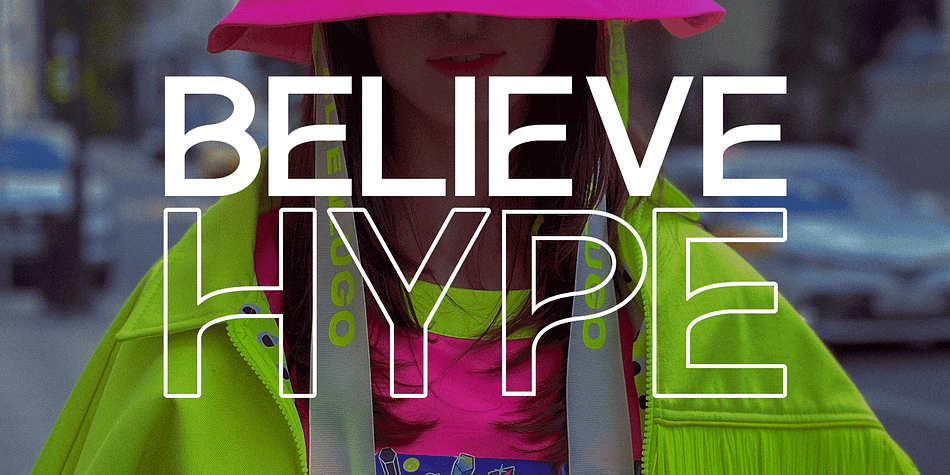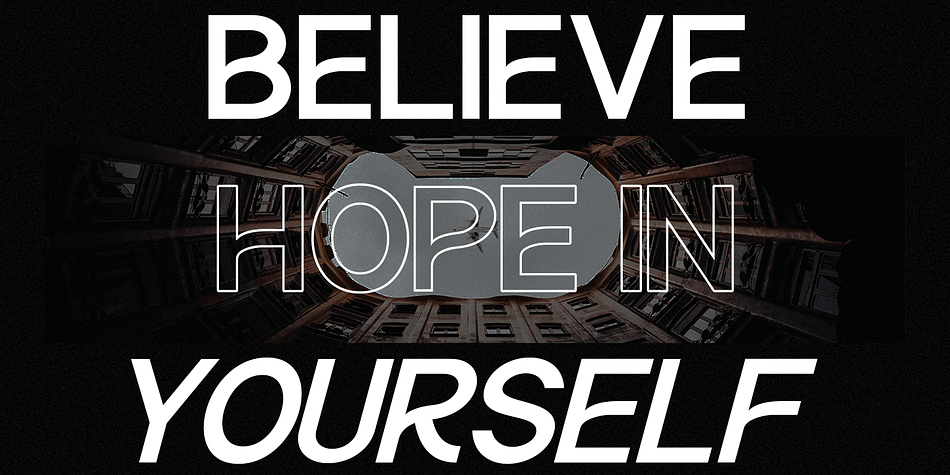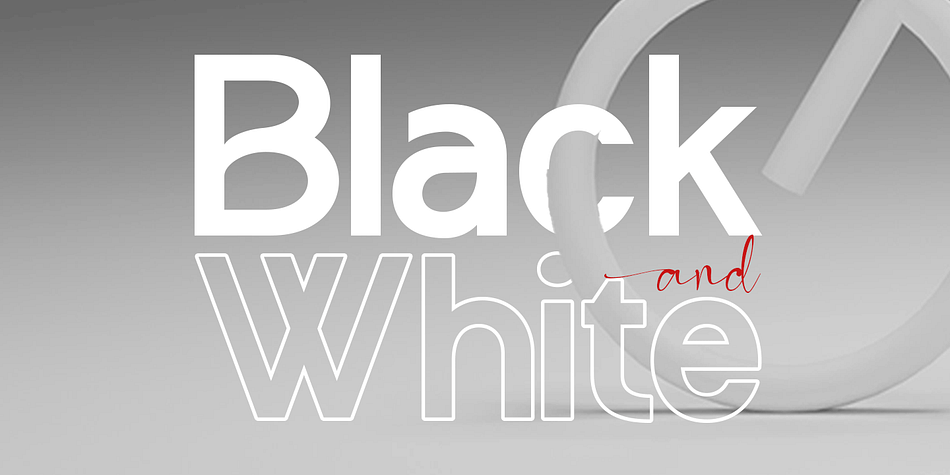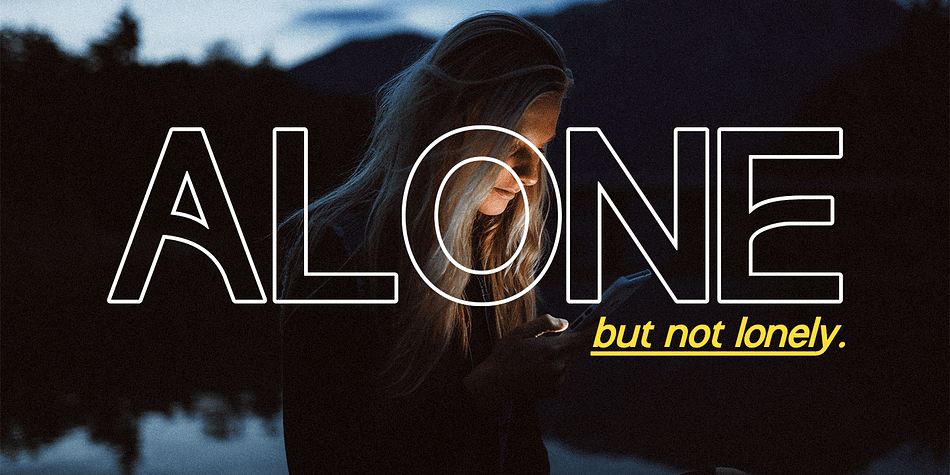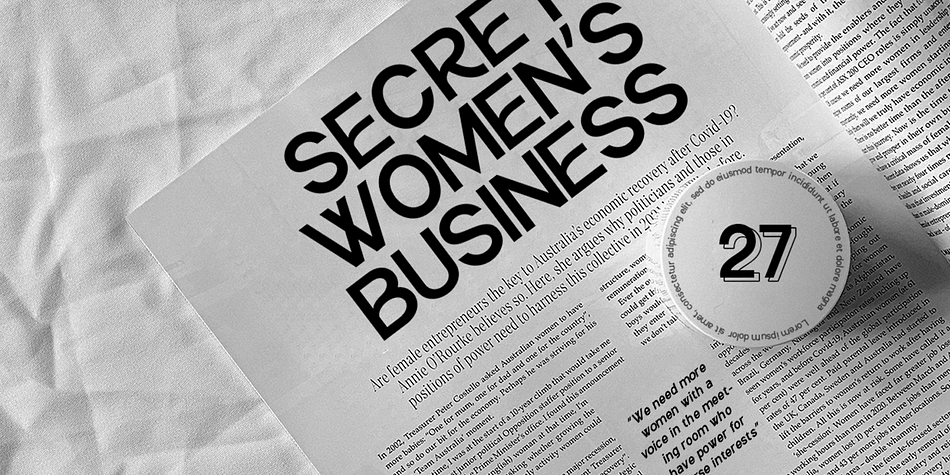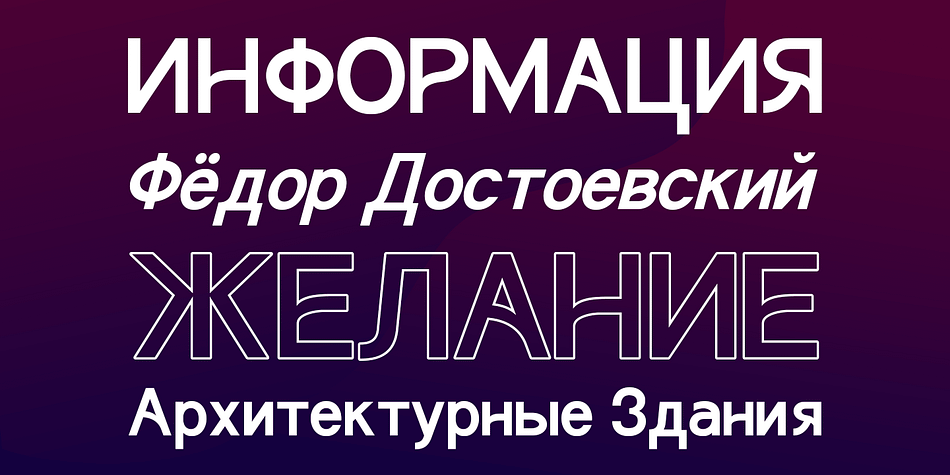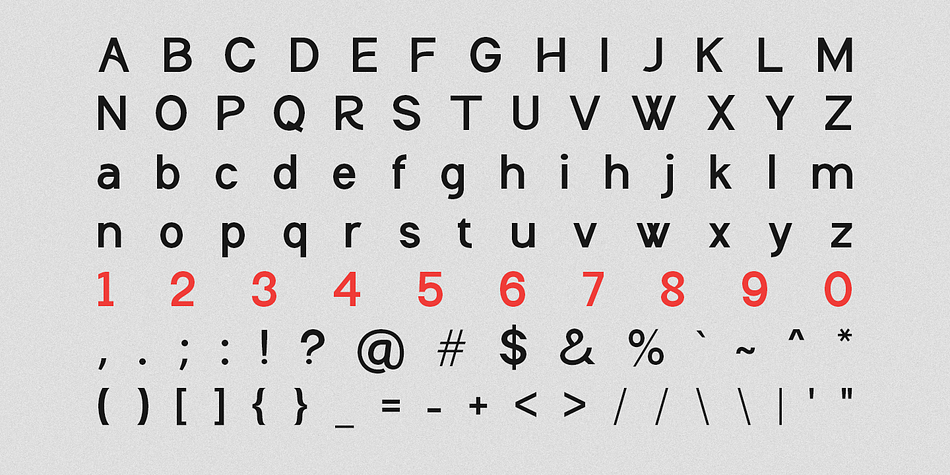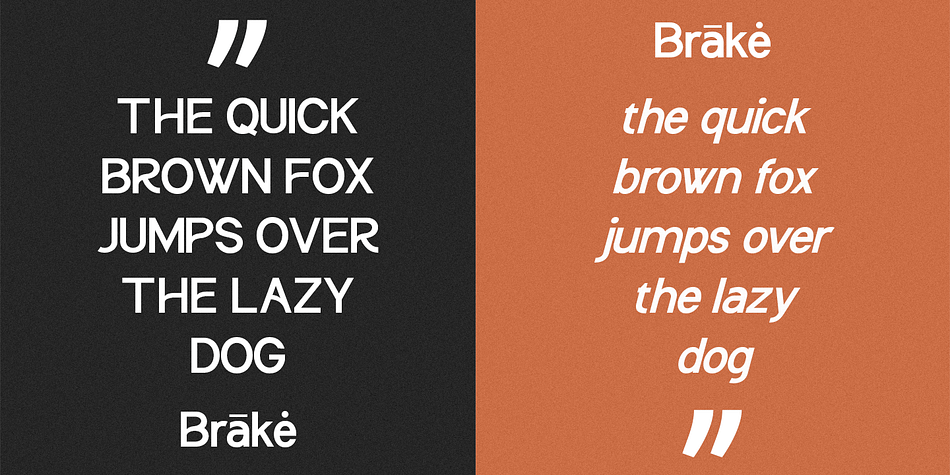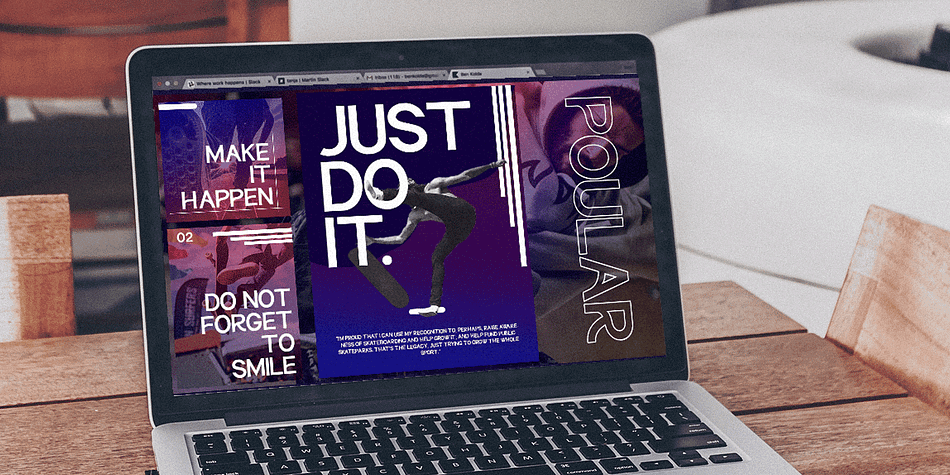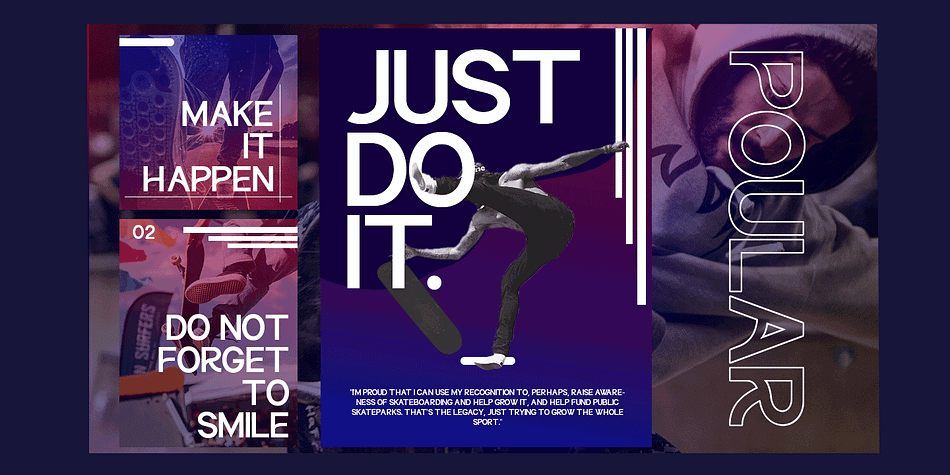
Brake
Brake is a sans serif font family. This typeface has three styles and was published by Black Studio.
New from Black Studio, presenting Brākė is a typeface that is feminine, adaptable, contemporary aesthetic and creates endless variations for your creative needs.
Its striking contrasts and subtle details, together with its sumptuous strokes and voluptuous curves, create a beautiful and powerful statement for any typographic composition, blending glamor with a contemporary aesthetic.
Brākė really helps you create unlimited variations for your creative needs in making your project titles: such as Books, fashion, magazines, logos, branding, photography, invitations, wedding invitations, quotes, blog headers, posters, advertisements, postcards, books, websites, etc.